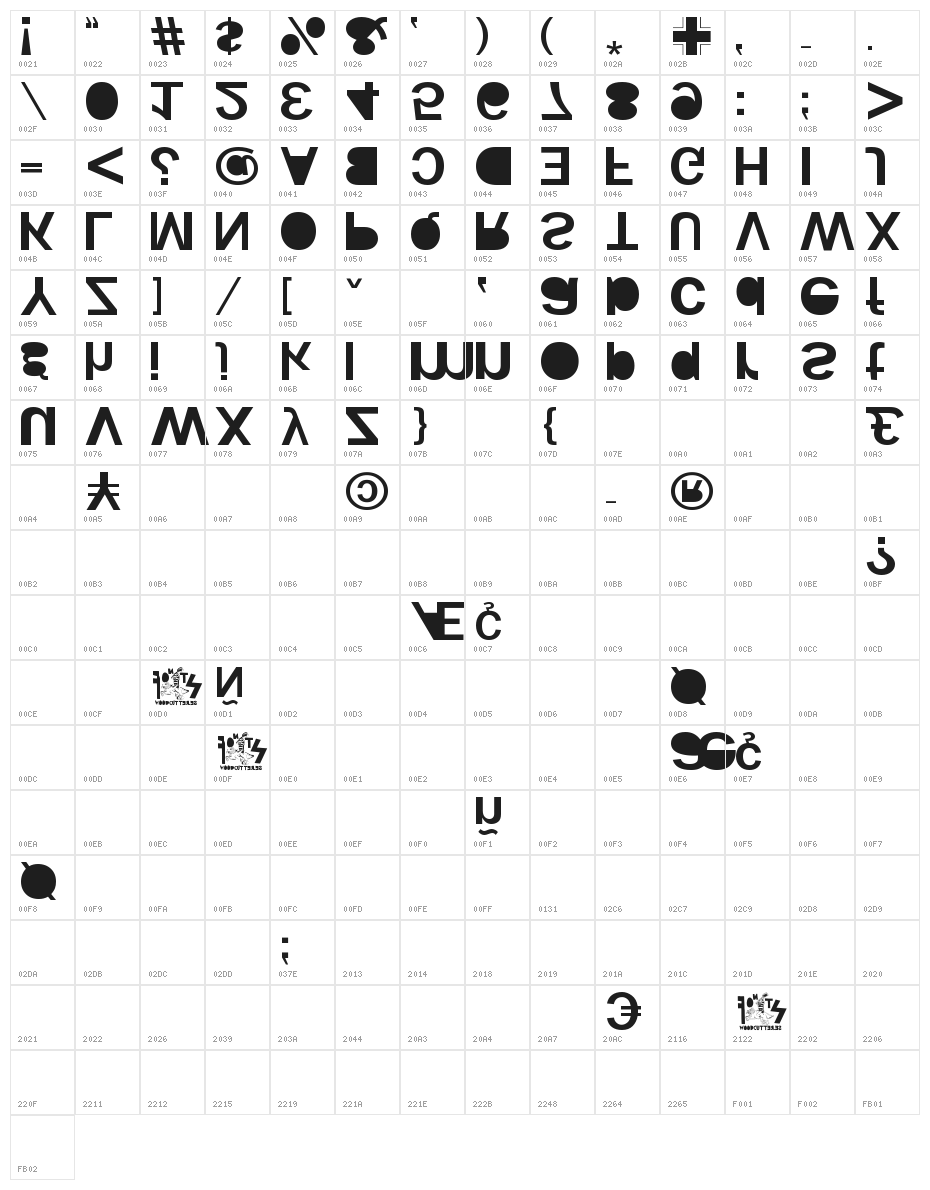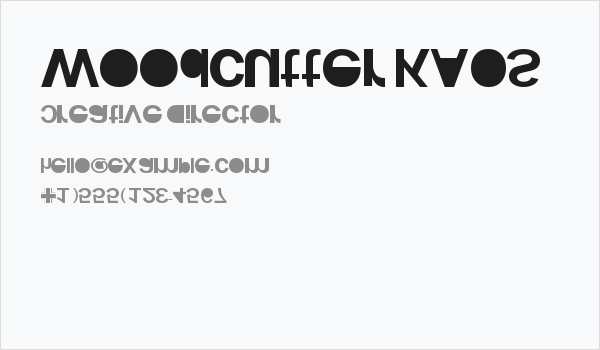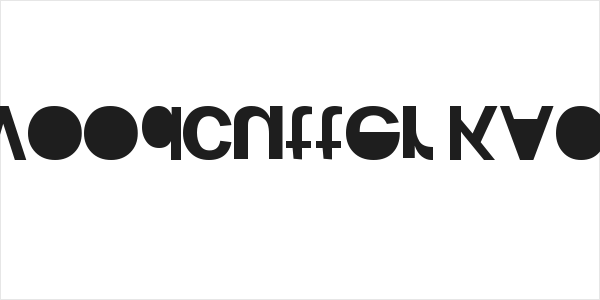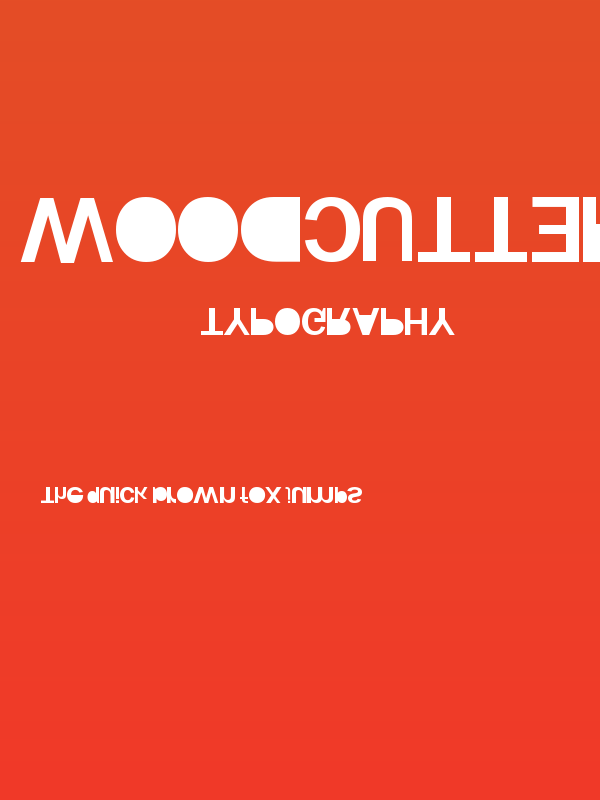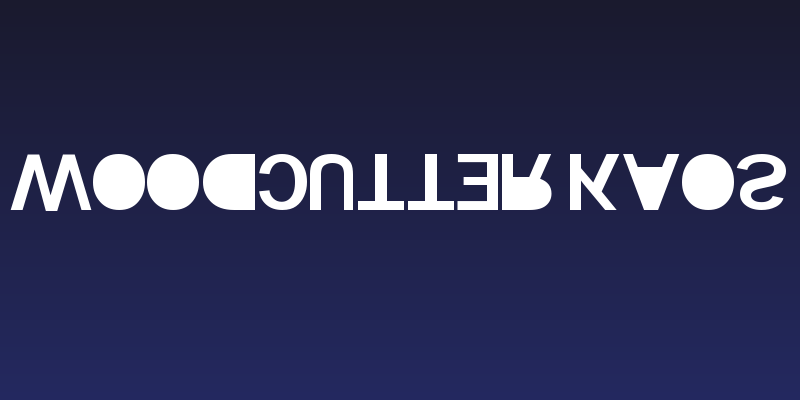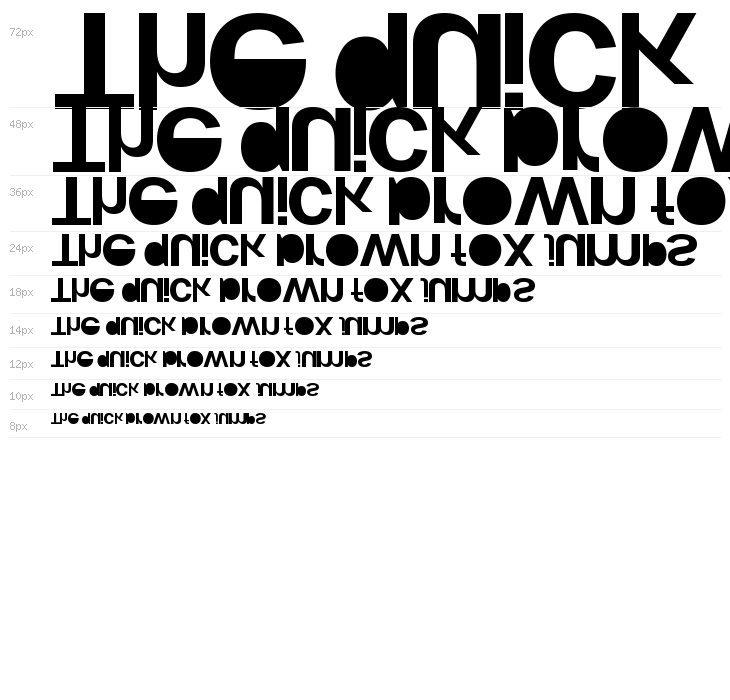
woodcutter KAOS Font
woodcutter KAOS Description
This font features a bold and geometric design with a distinctively modern and abstract style. Each character is crafted with a combination of sharp angles and smooth curves, creating a unique visual impact. The uppercase letters are particularly striking, with some characters incorporating unexpected shapes and negative spaces that add to the font's avant-garde appeal. The lowercase letters maintain a consistent style, while the numerals and special characters follow the same geometric theme, ensuring a cohesive look across all text. This font is perfect for projects that require a bold statement and a contemporary aesthetic.
| Proposed Projects | Ideal for branding, posters, album covers, and any project needing a bold, modern look. |